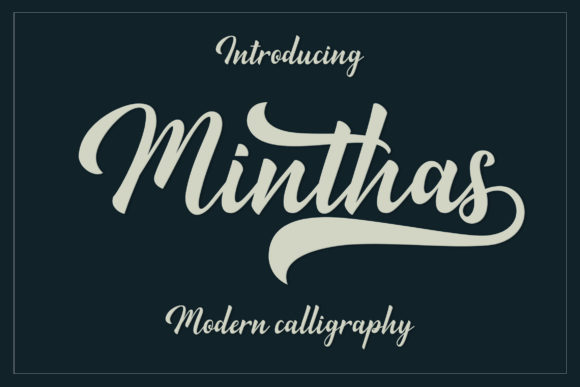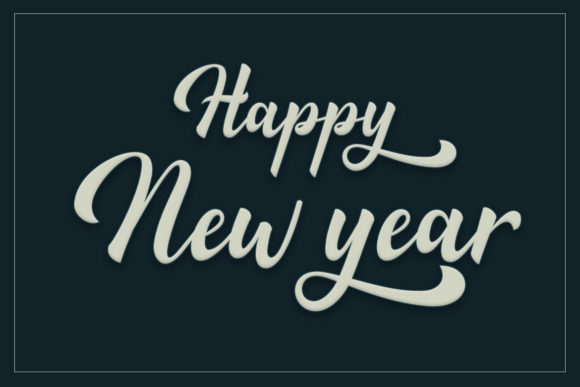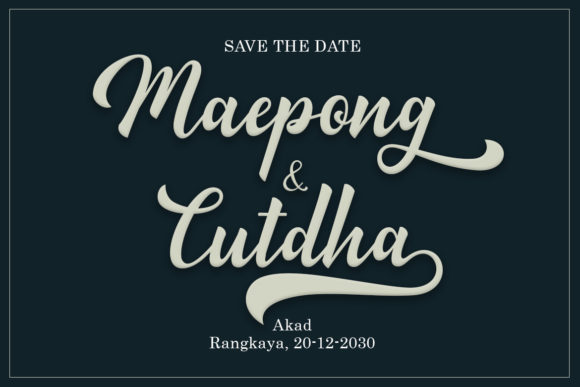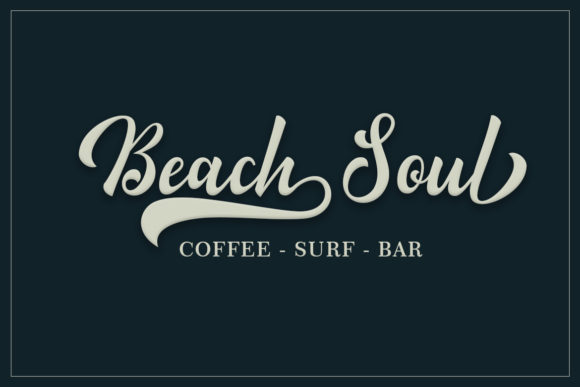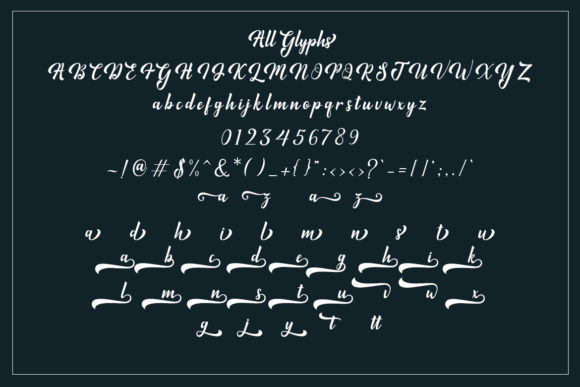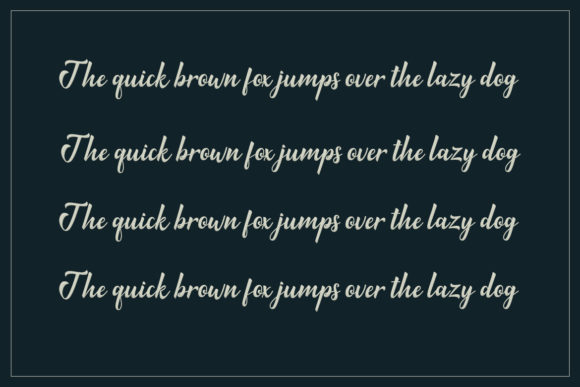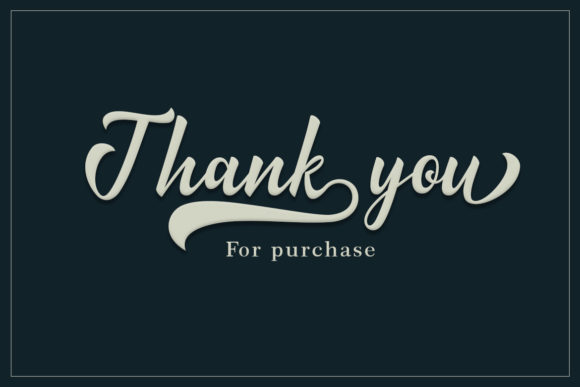
HomeScript FontsMinthas Script Font Script Fonts Minthas Script Font FacebookXPinterestWhatsApp Minthas Script Font Poster 2 Minthas Script Font Poster 3 Minthas Script Font Poster 4 Minthas Script Font Poster 5 Minthas Script Font Poster 6 Minthas Script Font Poster 7 About Minthas Script Font Minthas is a classic script font with a unique point of view. Get inspired by its bold charm! DOWNLOAD NOW People also explored My Familly Font Ruri Valentine Monogram Font Xerym Font New Year Font Jessie Mcgrath Font Captain Jacky Font Soange Font Impatiens Font Choco Vanilla Font 457 0 TagsMinthas Script Font Previous articleAmelyna FontNext articleBreethy Font LEAVE A REPLY Cancel reply Comment: Please enter your comment! Name:* Please enter your name here Email:* You have entered an incorrect email address! Please enter your email address here Website: Save my name, email, and website in this browser for the next time I comment. Personal Use Free Stronger Personal Use Free Read more about this font Predators Personal Use Free Read more about this font Sunflower Personal Use Free Read more about this font Hello Holiday Personal Use Free Read more about this font BLOG Top 10 Handwritten Fonts That Elevate Your Designs Top 10 Handwritten Fonts That Will Elevate Your Designs Handwritten fonts bring a warm, personal touch to every creative project. Whether you're designing logos, invitations,... Free Fonts Risk: Why Free Fonts Can Be Dangerous for Designers Where to Buy American Fonts Online in 2024 Best Fonts for T-Shirt Design – Top 2025 Picks